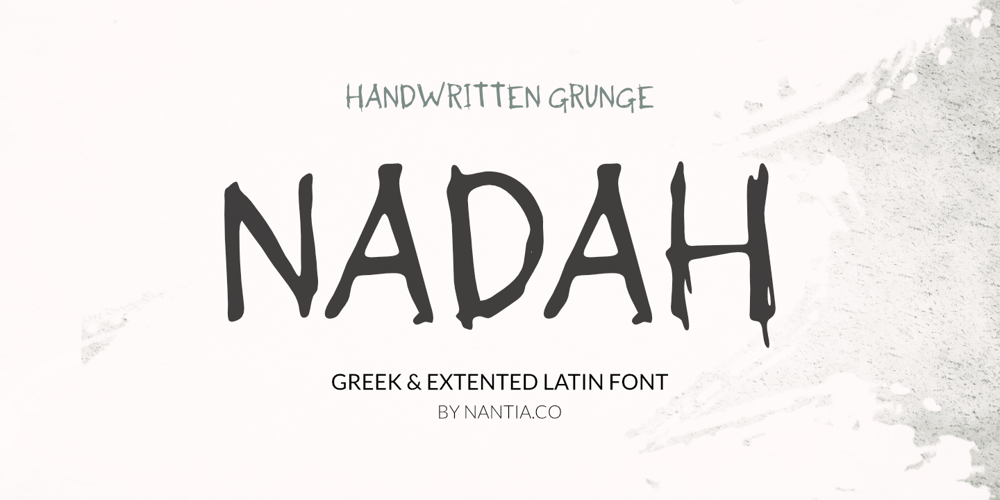
Nadah Font Family was designed by Konstantina Louka and published by Nantia.co. Nadah contains 1 styles and family package options. Nadah Grunge Handwritten Greek font is a decorative font. Of course, the font supports Greek character set and a full extended Latin character set with diacritics. The raw, organic feeling of the font it makes it ideal for the food industry. Also, it’s ideal for creating social media content, for branding, poster design, wedding invitations, or any other packaging.So with your purchase, what is included? Extended Latin Characters Greek Characters Numerals